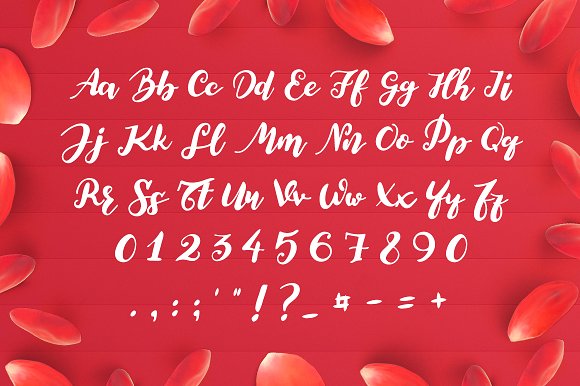
Introduction to Elegant Roughness Font
As designers, we’ve all been there – staring at a blank page, trying to spark that creative moment that will bring our project to life. Sometimes, it’s the smallest details that make all the difference. For me, that moment came when I stumbled upon the Elegant Roughness Font, a stunning handwritten font that effortlessly combines elegance and roughness.
With its unique blend of sophistication and imperfection, the Elegant Roughness Font has quickly become a go-to design resource for creatives. Whether you’re working on a high-quality logo, crafting a compelling tagline, or simply looking to add a personal touch to your project, this font has got you covered. Its versatility and charm make it an ideal choice for any creative project, and the best part? It’s available for free download, perfect for designers on a budget.
Key Features of Elegant Roughness Font
- Unique blend of elegance and roughness, perfect for creative projects that require a touch of sophistication and edge.
- Perfect for use in a variety of creative projects, including logos, typography, and graphics, thanks to its versatility and unique style.
Honest Review: Elegant Roughness Font
I recently had the chance to work with the Elegant Roughness Font for a creative project and I must say it’s been a game-changer. This font has a unique blend of elegance and roughness that adds a touch of sophistication to any design. ✨
The Elegant Roughness Font is available as a free download, making it a great resource for designers on a budget. One of the standout features of this font is its versatility – it works well for a variety of design styles, from modern to vintage.
Here are some of the things I love about the Elegant Roughness Font:
- High-quality design that looks great on both light and dark backgrounds
- Easy to customize and pair with other fonts
- Works well with transparent backgrounds, making it perfect for logo design
That being said, there are a few limitations to keep in mind:
- Not ideal for very small text sizes, as the roughness can make it difficult to read
- No bold or italic versions available
Overall, I’m really impressed with the Elegant Roughness Font and would highly recommend it to designers looking for a high-quality, unique font for their next creative project. ⚠️
Tips for Getting the Most Out of Elegant Roughness Font
To get the most out of the Elegant Roughness Font, try pairing it with a transparent background to create a modern and sleek look. You can also experiment with different font sizes, colors, and styles to add depth and visual interest to your design.
The Elegant Roughness Font is perfect for a variety of creative projects, including:
- Marketing materials and social media graphics
Alternatives to Elegant Roughness Font
Great Vibes is a beautiful, elegant script font that is perfect for creating a sophisticated and high-quality design resource. It is ideal for use in creative projects such as invitations, wedding stationery, and luxury branding. Great Vibes has a smooth, flowing design that is reminiscent of handwritten text, making it a great alternative to Elegant Roughness Font for designers who want a more refined look. It is available for free download and can be used on a transparent background.
Playfair Display is an elegant, luxurious serif font that is perfect for creating high-quality design resources. It is ideal for use in creative projects such as magazine headlines, book covers, and luxury branding. Playfair Display has a sophisticated, refined design that is reminiscent of high-end typography, making it a great alternative to Elegant Roughness Font for designers who want a more sophisticated look. It is available for free download and can be used on a transparent background.